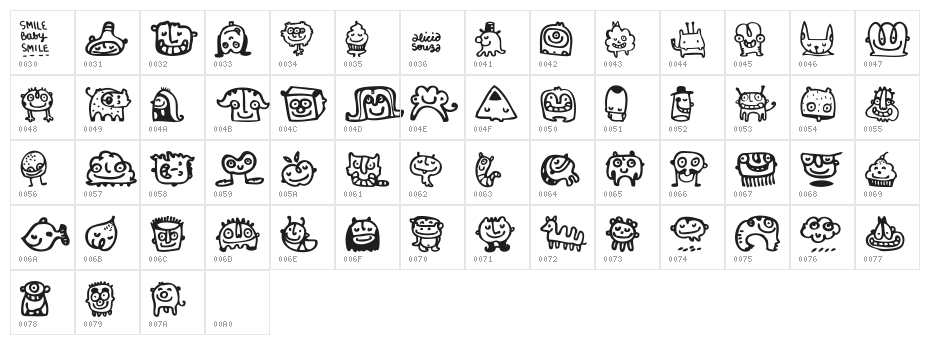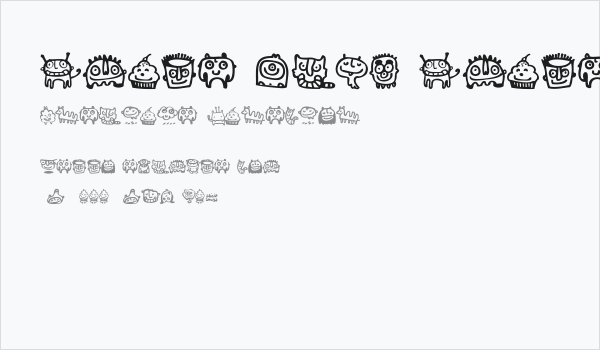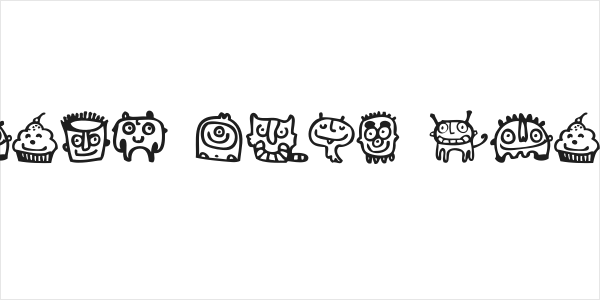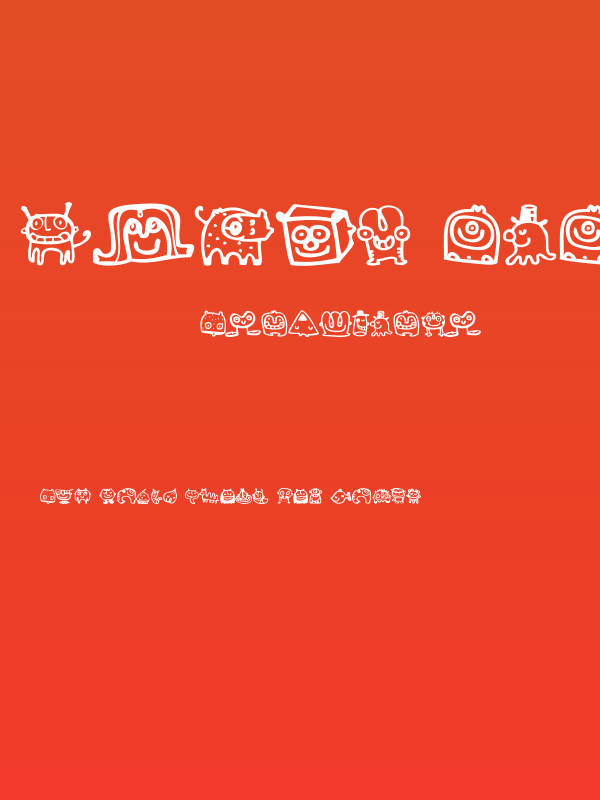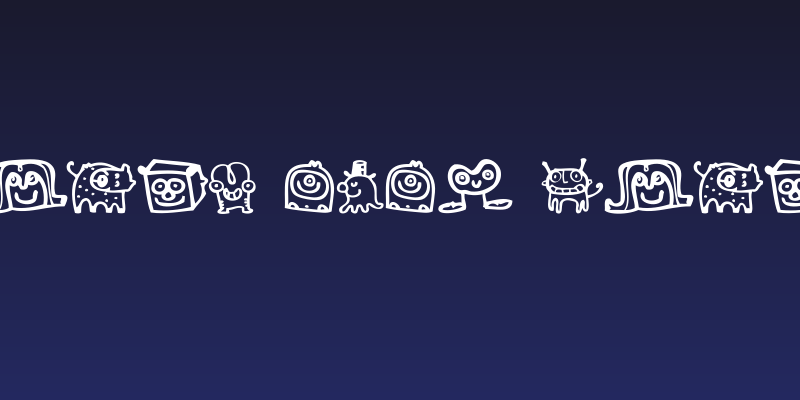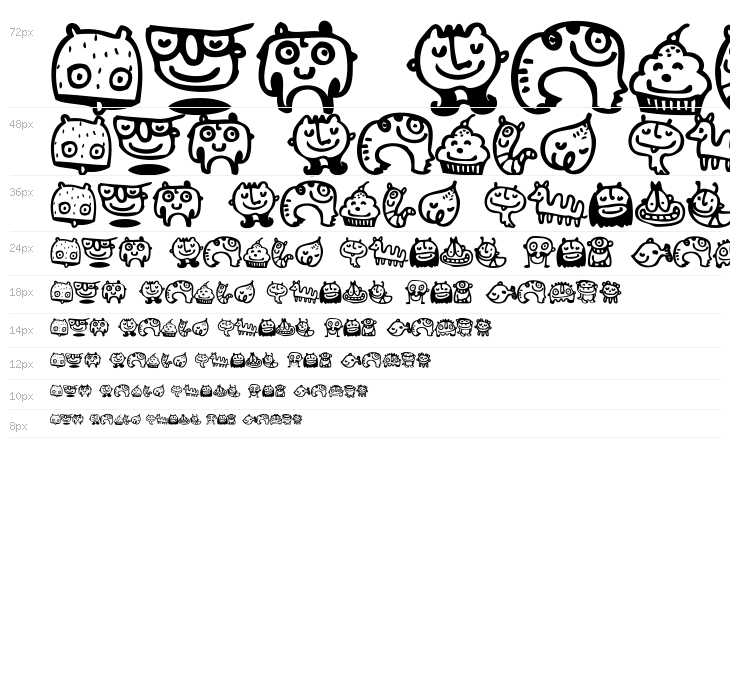
Smile Baby Smile Font
Smile Baby Smile Description
This font is a playful and whimsical collection of characters, each designed with unique, cartoonish features. The characters are highly stylized, resembling doodles or sketches with exaggerated expressions and forms. The font is characterized by its bold, thick lines and a hand-drawn aesthetic that gives it a lively and energetic feel. Each character is distinct, with a variety of shapes and sizes, adding to the overall quirky and fun nature of the font. This style is perfect for projects that require a touch of humor and creativity, making it ideal for children's materials, playful branding, or any design that aims to evoke joy and imagination.
| Overall Style | Whimsical, Playful |
| Use Case | Logos, Posters, Children's materials |
| Proposed Projects | Ideal for children's books, playful branding, greeting cards, and creative posters. |